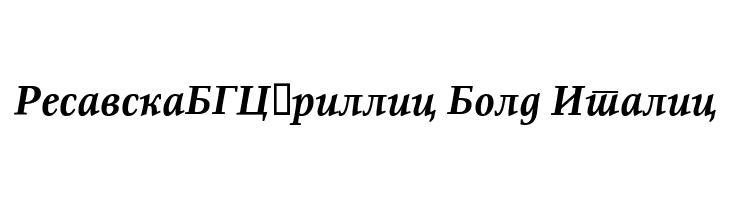
A bold, classic serif font with strong strokes and elegant serifs.
A bold and italic serif font with strong, dynamic strokes and pronounced serifs.
An elegant serif italic font with moderate contrast and a classic style.
A bold, classic serif font with strong strokes and elegant serifs.
A bold, italic serif font with a classic and elegant style.
An elegant italic font with smooth curves and moderate stroke contrast.
A classic serif font with strong readability and a cohesive design, suitable for formal and editorial use.
A bold, classic serif font with strong, pronounced characters.
A bold, italicized serif font with a classic and elegant style.
Elegant serif font with italic slant and clear Cyrillic characters.